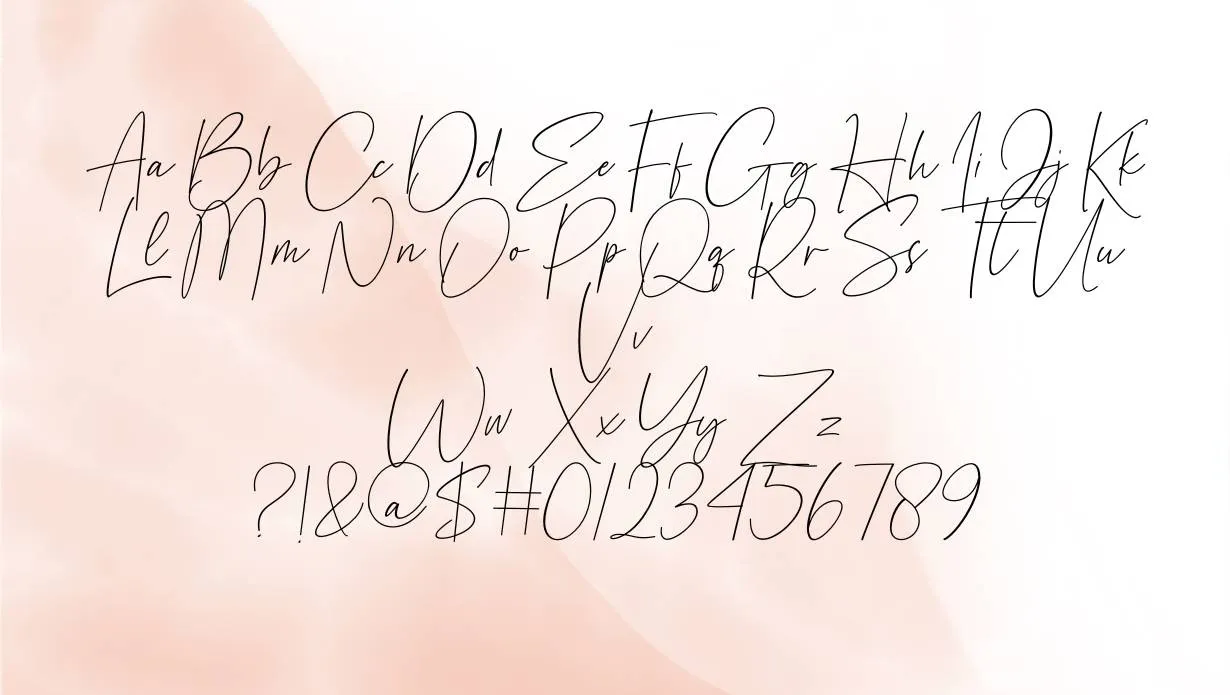
Cellestial font is the celestial storyteller, narrating tales in the language of the stars. Crafted for fantasy-themed projects or enchanting invitations, it adds a touch of magic and wonder to your words.
With a gracefully medium weight and elegantly proportioned width, Cellestial weaves an otherworldly charm, turning your text into a cosmic narrative under the starry night.